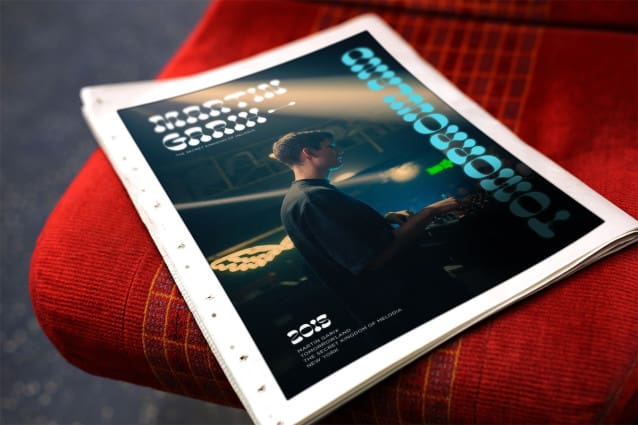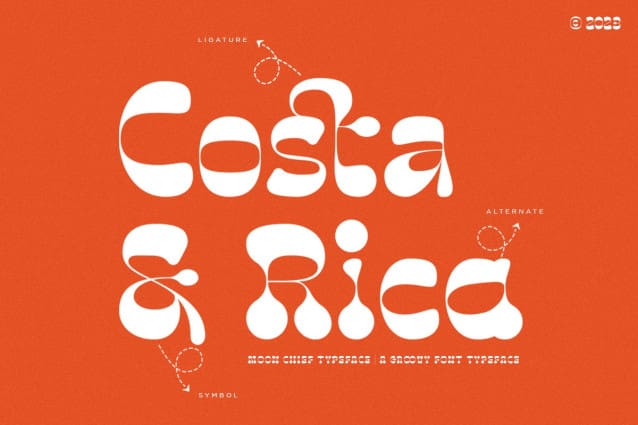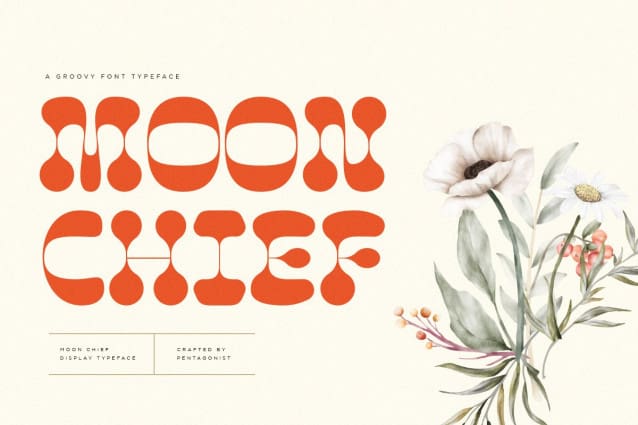
Moon Chief Font
Moon Chief Font Is A Groovy Display Typeface Inspired By Retro and Vintage Style. This font is perfect for stickers, retro projects, craft projects, shirts, svg designs, procreate designs, branding, blogs, logos, invitations and more!